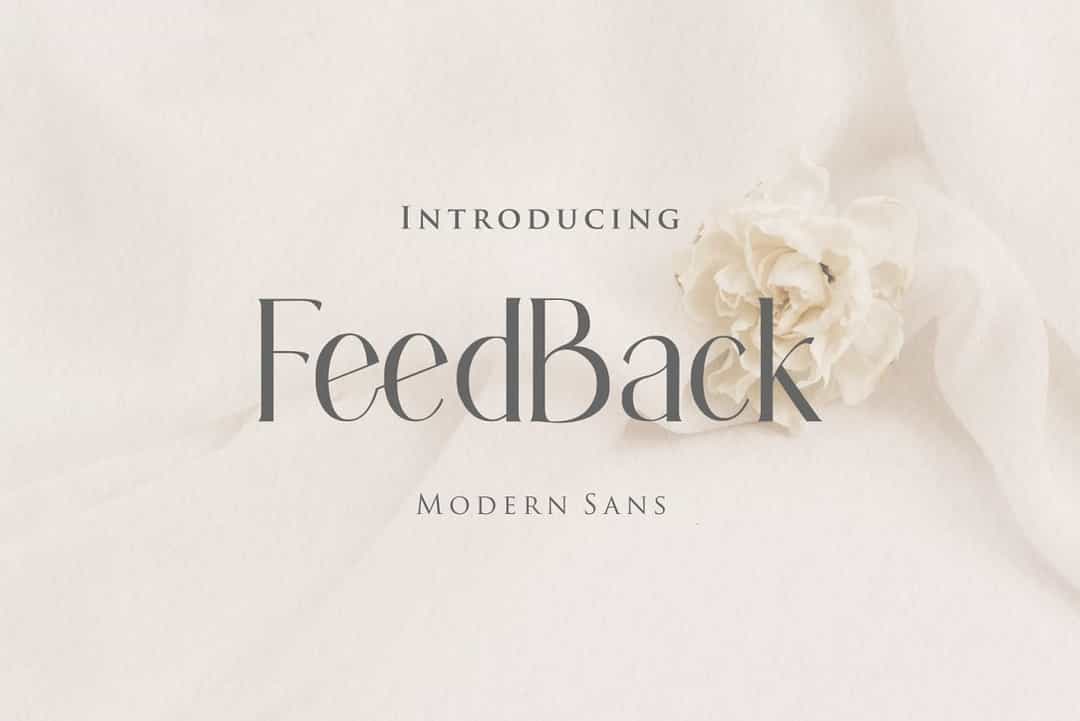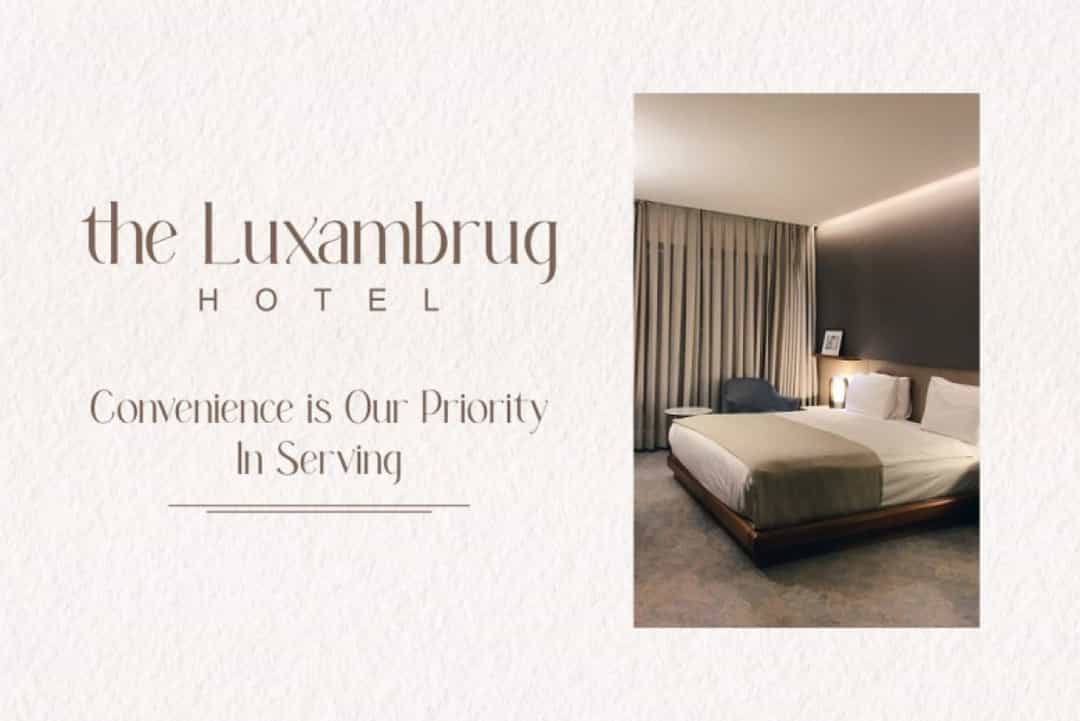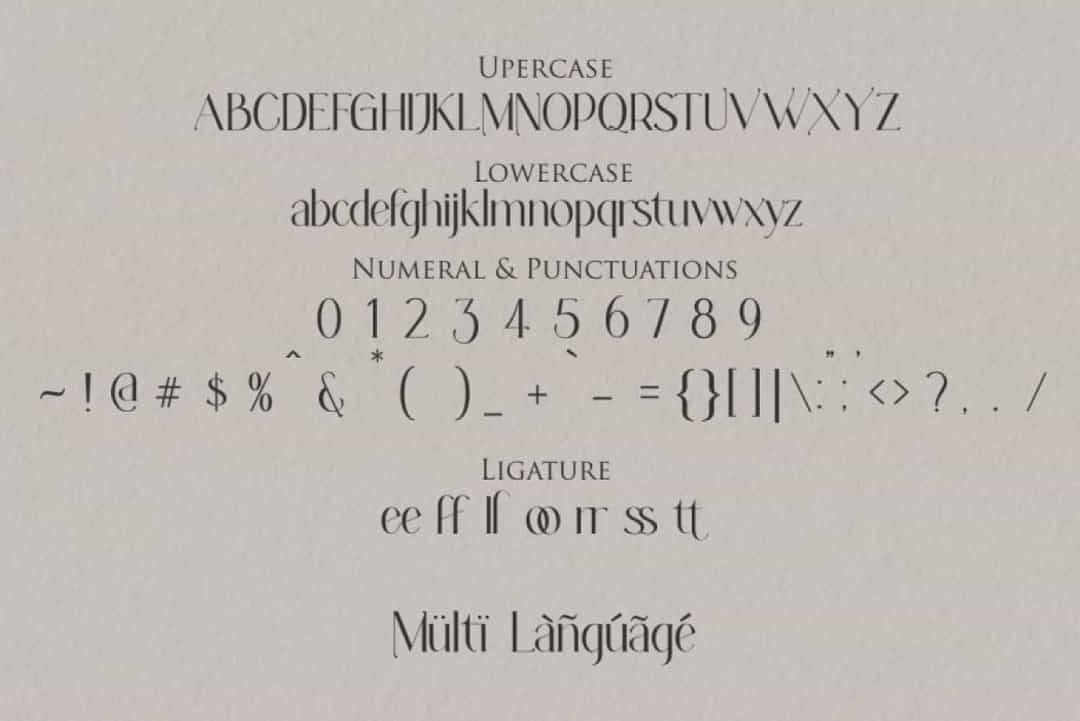
FeedBack Modern Sans Serif Font is an elegant font featuring clear and refined lines influenced by pen copperplate and tail. Ideal for elegant-themed projects and lifestyle designs such as logos, titles and magazines; featuring regular ligatures.